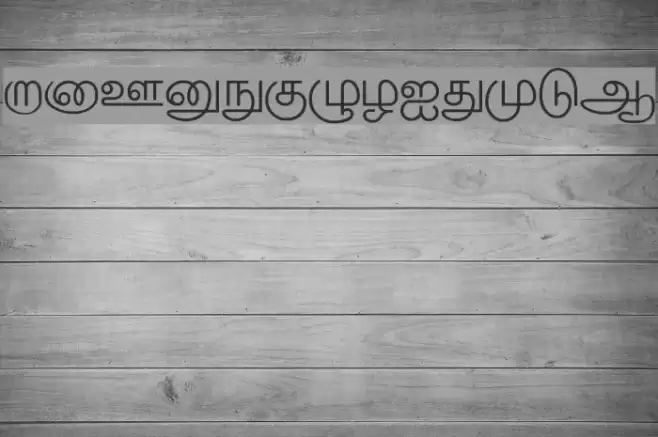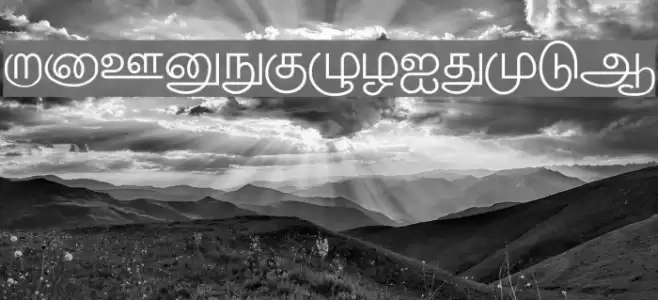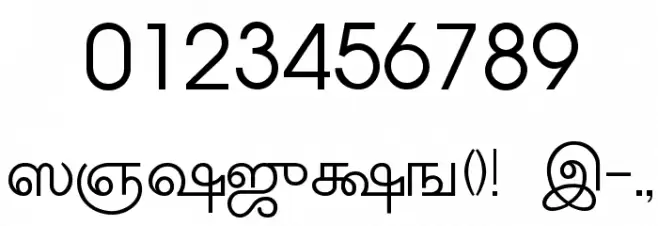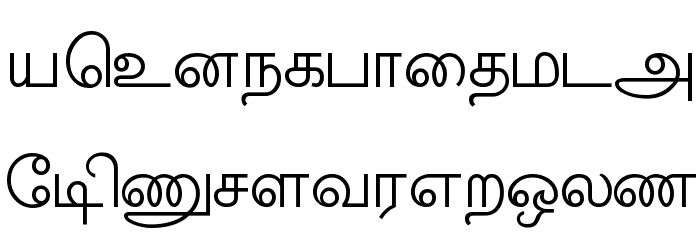
Amudham Font
Amudham Description
This font features a clean and modern design with smooth curves and balanced proportions. The characters are well-defined, offering excellent readability. The Tamil script is elegantly crafted, maintaining a consistent stroke width throughout. The numerals are straightforward and align well with the overall style. Special characters are included, adding versatility to the font. The design is suitable for both digital and print media, providing a contemporary look that is both functional and aesthetically pleasing.
A modern, clean font with smooth curves and balanced proportions, ideal for Tamil script from Uncategorized fonts.
- Proposed Projects: This font is perfect for branding, signage, digital content, and print media where a modern and clean appearance is desired.